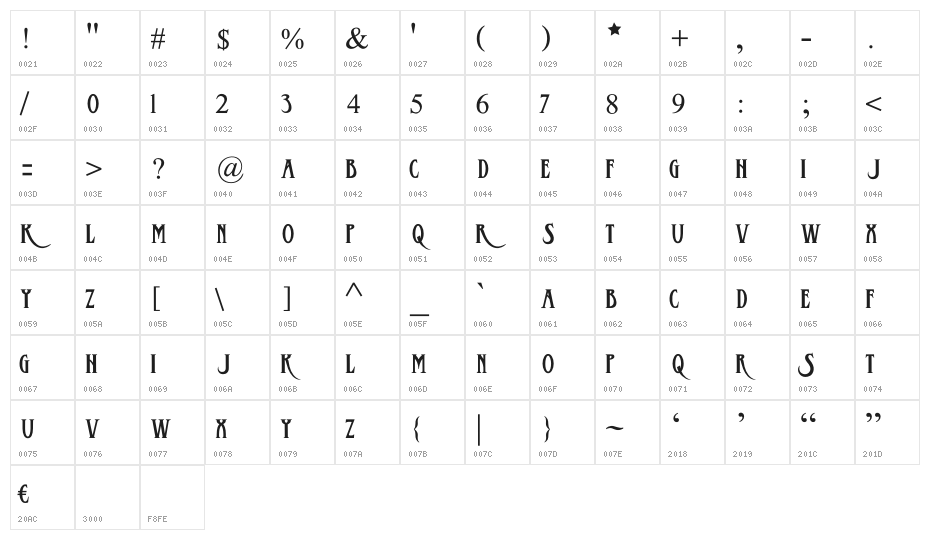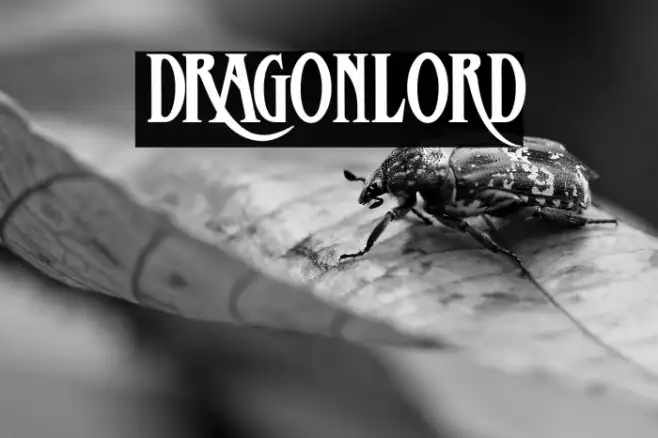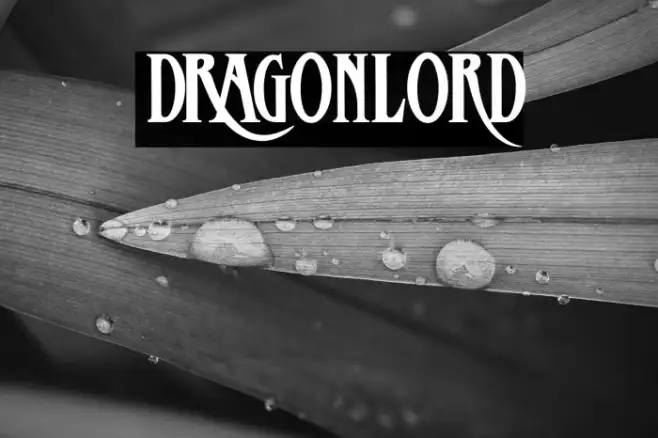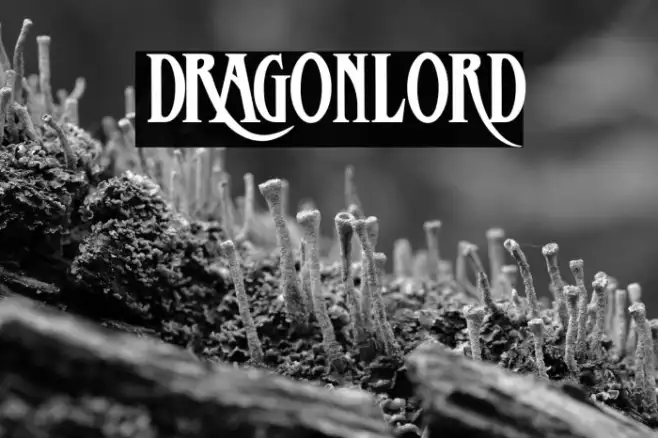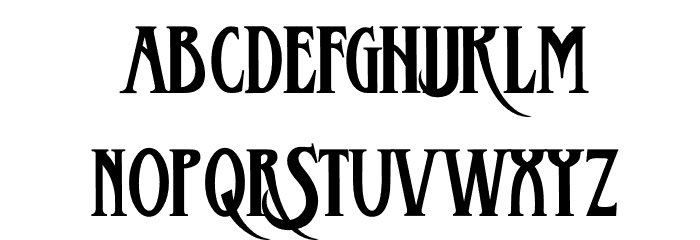
DRagonlord Font
DRagonlord Description
This font features a bold and dramatic style with a strong presence. The characters are adorned with elegant, sweeping curves and sharp serifs, giving it a regal and commanding appearance. The uppercase letters are particularly striking, with extended strokes and unique flourishes that add a touch of sophistication. The numerals and special characters maintain the same boldness and decorative flair, ensuring consistency across all glyphs. This font is ideal for projects that require a touch of grandeur and elegance.
| Proposed Projects | Ideal for fantasy book covers, movie posters, branding for luxury products, and themed event invitations. |